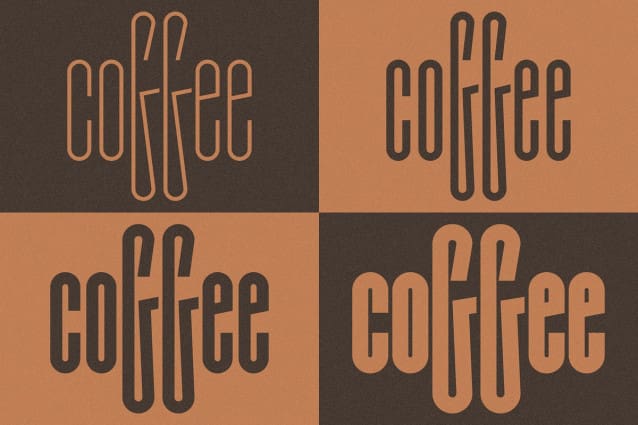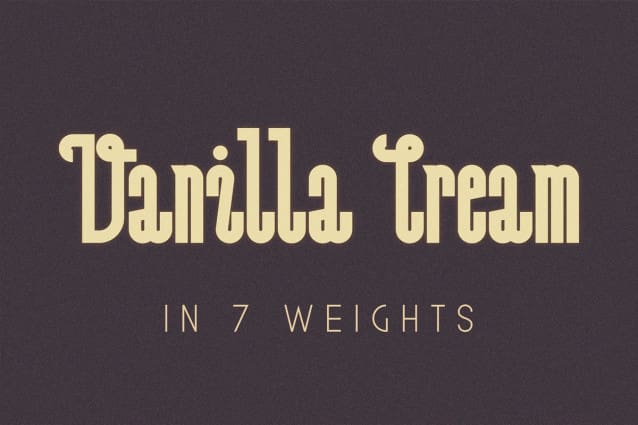
Vanilla Cream Font
Vanilla Cream Font comes in 7 weights. Suitable for any design needs : logo, branding, modern advertising design, logos, poster quote, book / cover Title, editorial design, website / blog, card, t-shirts, and any hand-lettered needs.